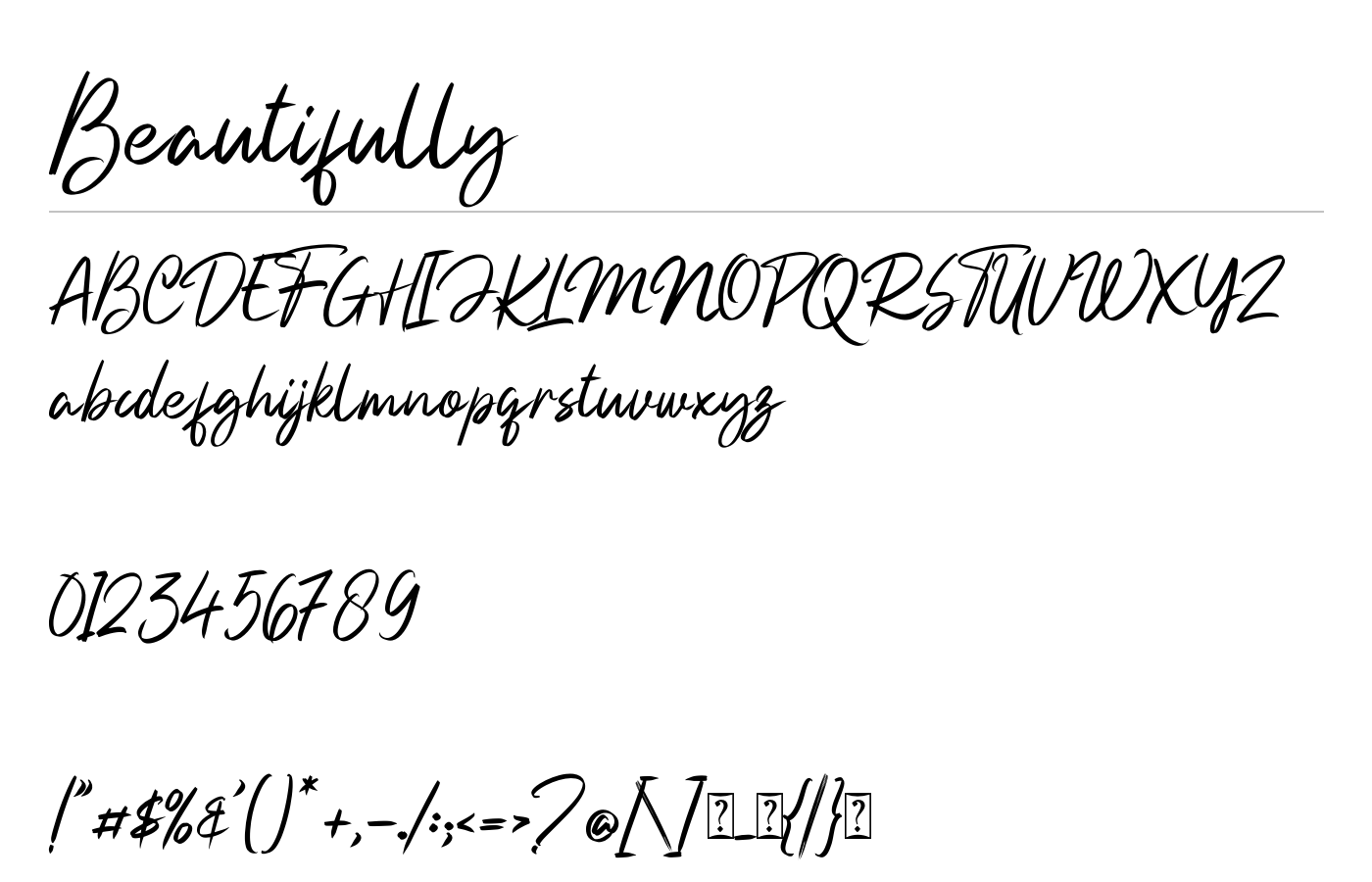
Beautifully Font is a lively and elegant script typeface with a smooth, flowing style that mimics natural handwriting. Its slender strokes and dynamic letterforms give it a personal, artistic feel, making it ideal for creative branding, invitations, and stylish headlines where a touch of sophistication and personality is desired.
Beautifully Font
About Beautifully Font
| Font family | Beautifully Font |
| Designer | Omotu 2020 |